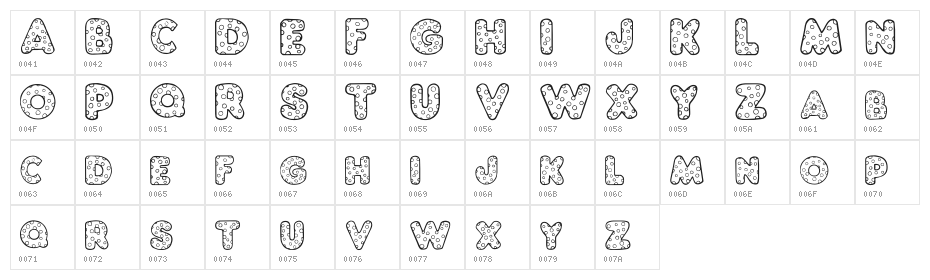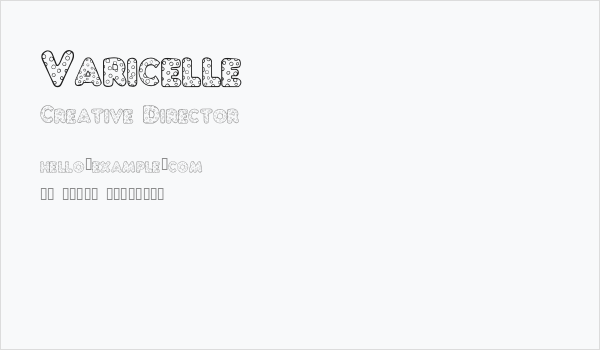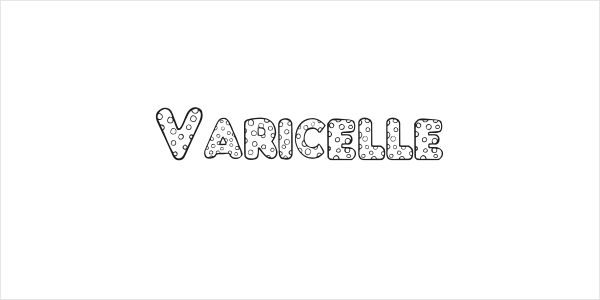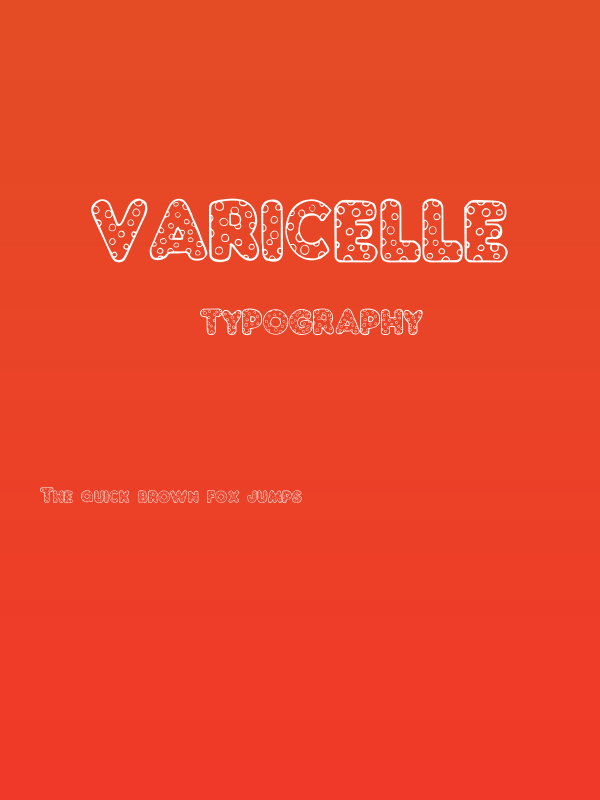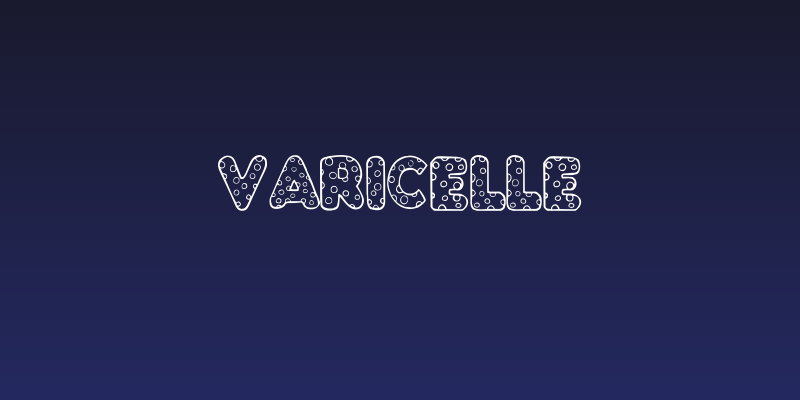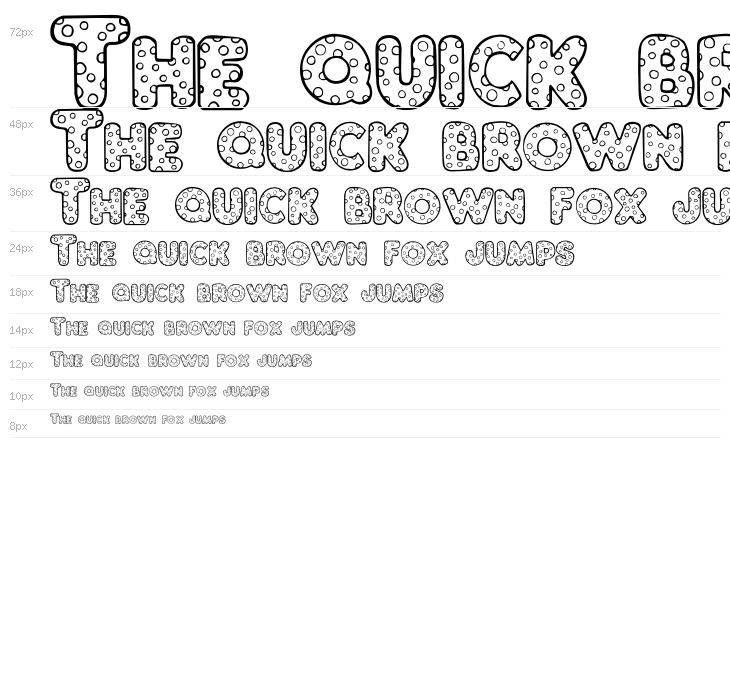
Varicelle Font
✎ Decorative
| 整体风格 | Playful, Whimsical, Fun |
| 推荐项目 | Ideal for children's books, playful posters, party invitations, and any project needing a fun, whimsical touch. |